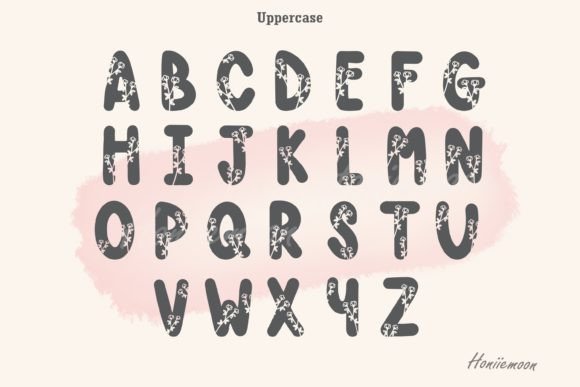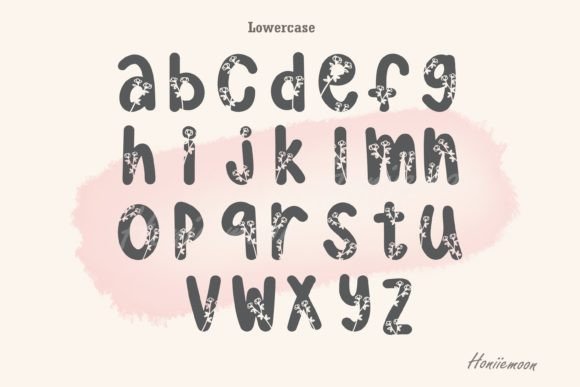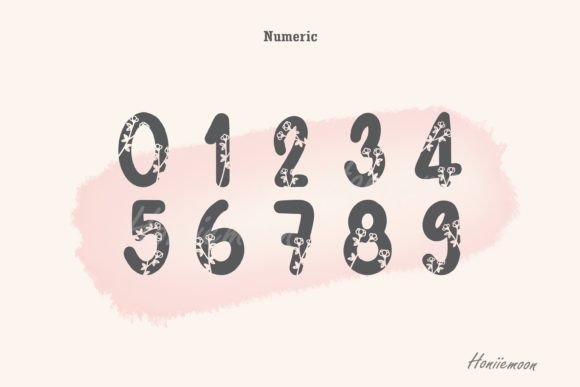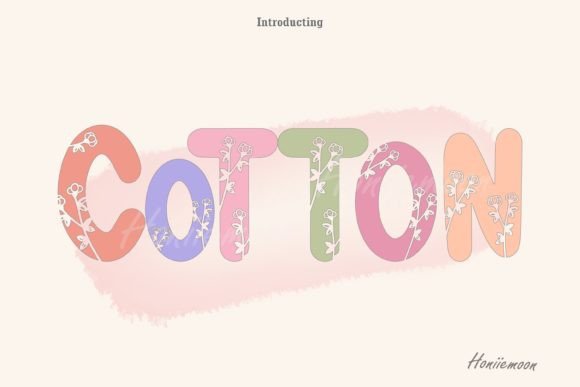
Cotton Font: The Ultimate Decorative Font for Creative Designs
Are you a designer or crafter looking for a font that can add a touch of fun and playfulness to your creative projects? Look no further than the Cotton Font! This cool and decorative font is perfect for anyone who wants to add a dash of cuteness and jollity to their designs. With Cotton Font, the only limit is your imagination, and we’re excited to show you how it can enhance your creative ideas.
What is Cotton Font?
Cotton Font is a bold and colorful display font that is designed to make your designs come alive. Its unique and playful style makes it perfect for a wide range of creative projects, from crafting and DIY tutorials to graphic design and digital art. Whether you’re creating invitations, posters, or social media graphics, Cotton Font is sure to add a touch of whimsy and fun to your designs.
Key Features of Cotton Font
- Cute and Jolly Design: Cotton Font has a distinctive and adorable design that is sure to capture the attention of your audience.
- Bold and Colorful: This font is designed to make a statement, with bold and vibrant letters that will add a pop of color to your designs.
- Highly Versatile: Cotton Font can be used for a wide range of creative projects, from digital art to crafting and DIY tutorials.
How to Use Cotton Font in Your Designs
Using Cotton Font in your designs is easy! Here are a few tips to get you started:
- Pair it with Other Fonts: Cotton Font looks great when paired with other fonts, such as sans-serif fonts or script fonts.
- Experiment with Colors: This font looks great in a variety of colors, so don’t be afraid to experiment and find the perfect hue for your design.
- Add it to Your Digital Art: Cotton Font is perfect for digital art, including illustrations, graphics, and more.
- Use it for Crafting and DIY Tutorials: This font is also great for crafting and DIY tutorials, including card making, scrapbooking, and more.
Benefits of Using Cotton Font
There are many benefits to using Cotton Font in your designs. Here are a few:
- Adds a Touch of Whimsy: Cotton Font adds a touch of whimsy and fun to your designs, making them more engaging and attention-grabbing.
- Perfect for Kids’ Projects: This font is perfect for kids’ projects, including birthday party invitations, kids’ craft tutorials, and more.
- Great for Social Media Graphics: Cotton Font is also great for social media graphics, including Facebook posts, Instagram stories, and more.
- Easy to Read: Despite its playful design, Cotton Font is easy to read, making it perfect for designs that require a clear and concise message.